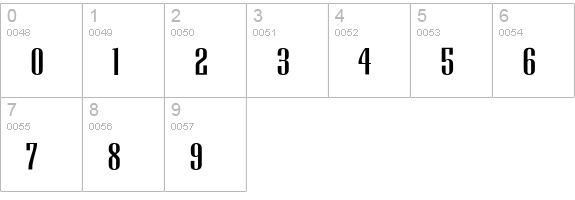
CgRadiantBdExCd Font Details
CgRadiantBdExCd font is a bold and expressive typeface that exudes a sense of radiance and sophistication. Its strong, clean lines make it perfect for headlines, titles, and other prominent text elements. This versatile font is designed to make a statement and grab the reader's attention. What sets CgRadiantBdExCd font apart is that it is available for free download at FontsMarket.com. This means that you can easily access and use this striking font for all your design projects without any cost. Whether you're creating posters, logos, or website banners, CgRadiantBdExCd font is sure to make your text pop and stand out. Elevate your designs with this modern and stylish typeface today.